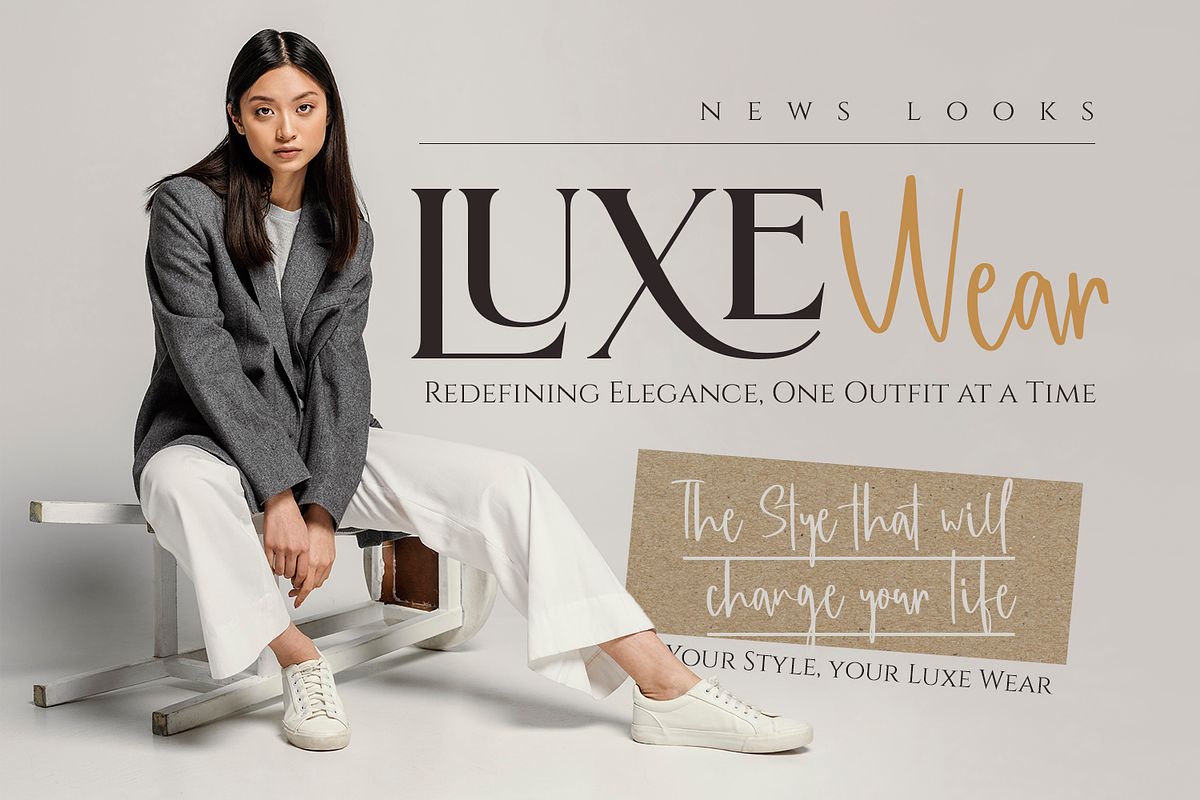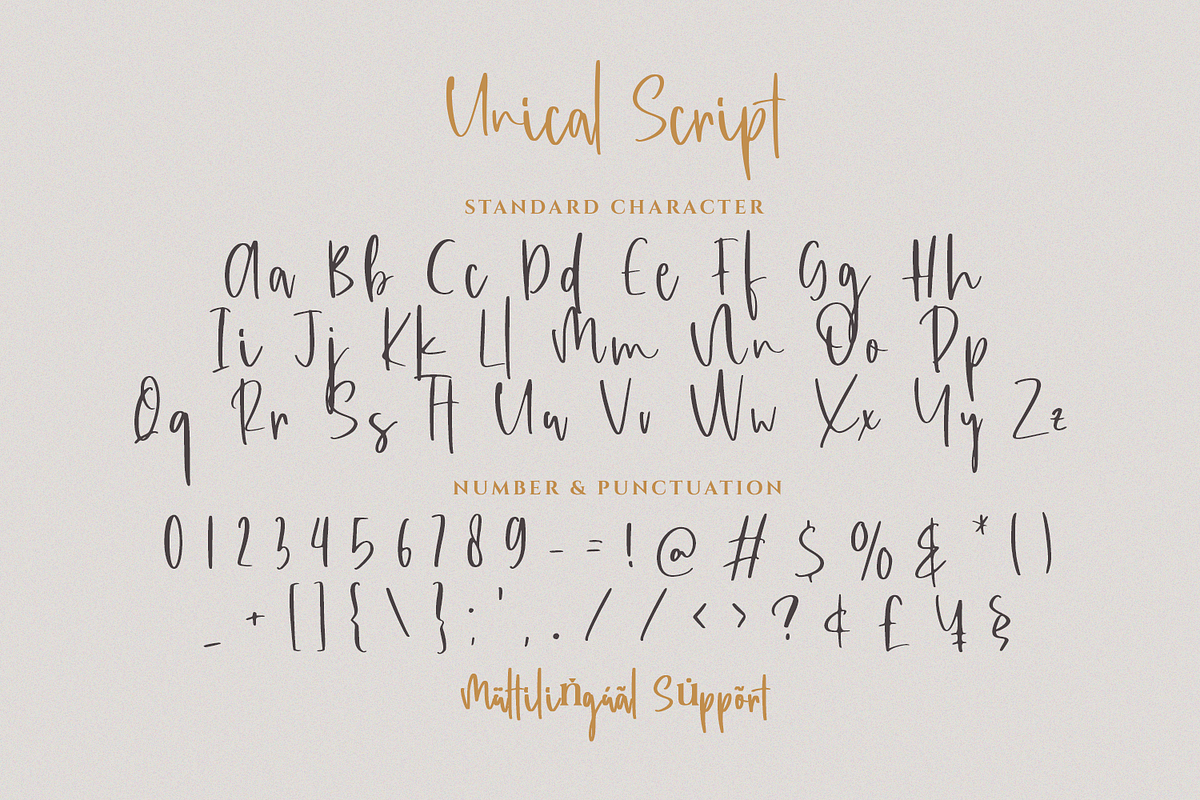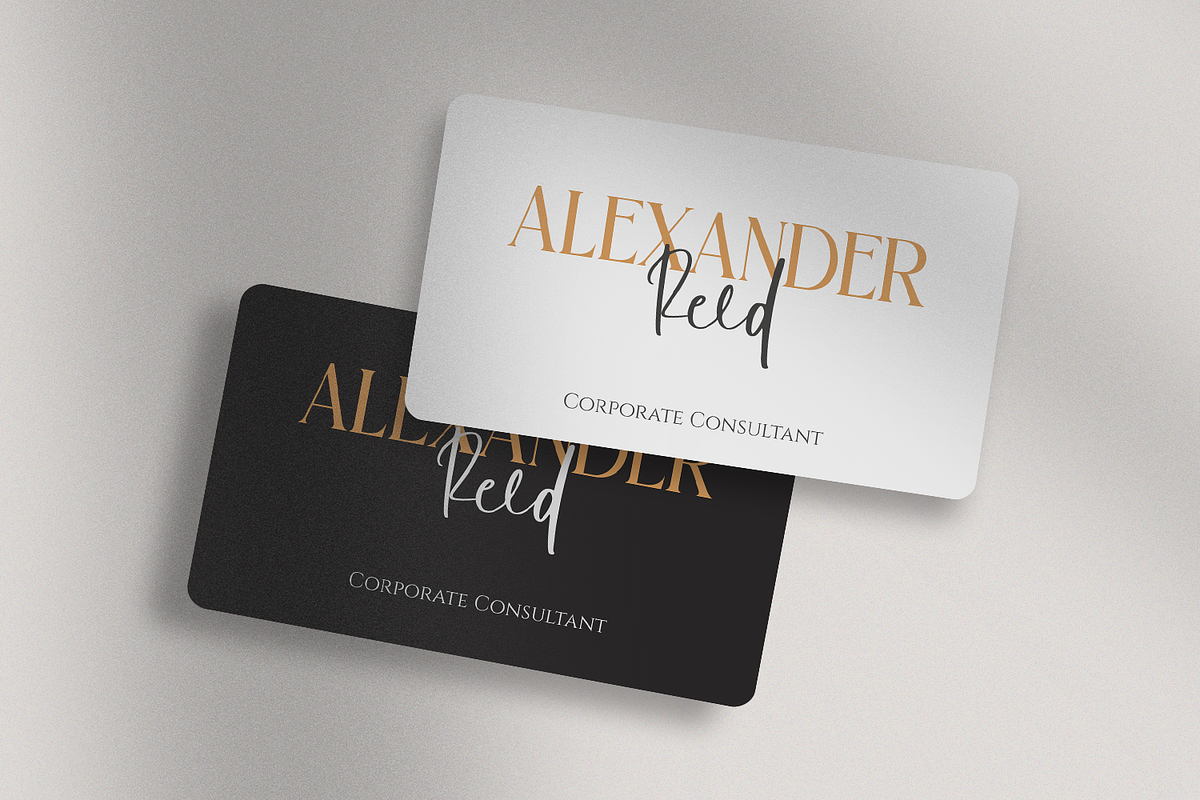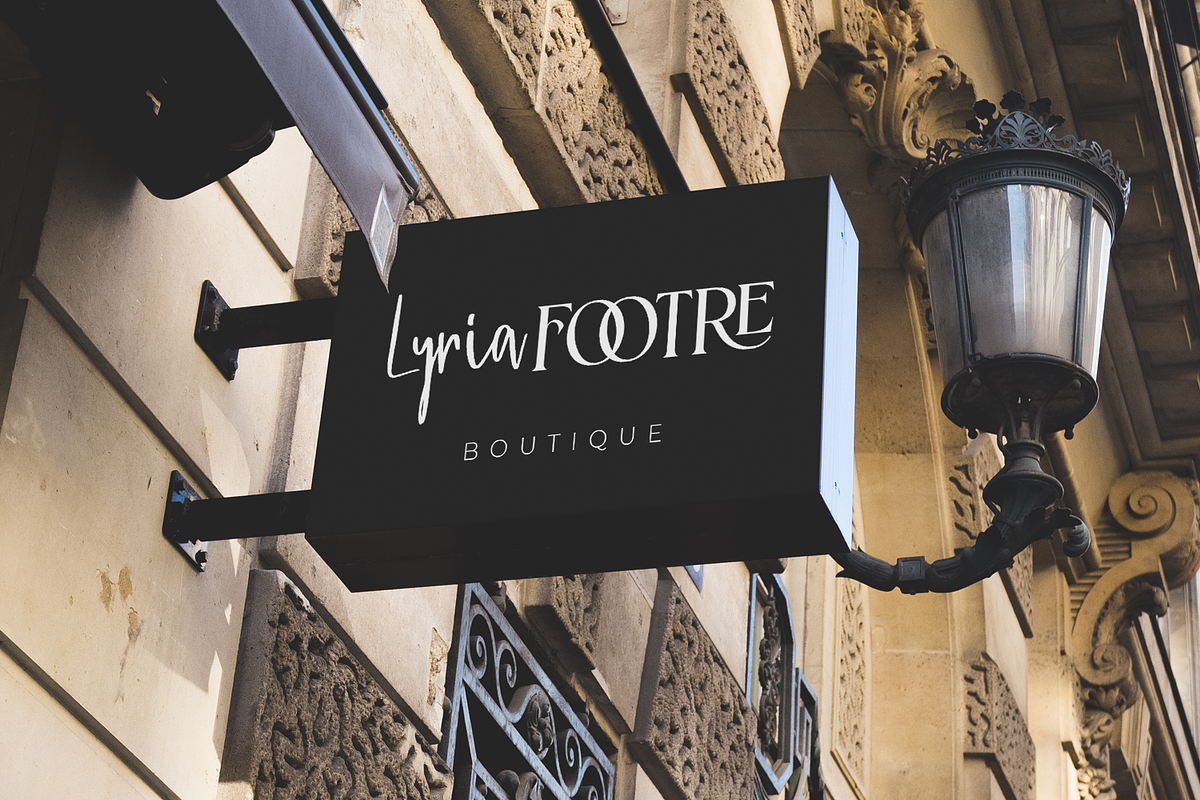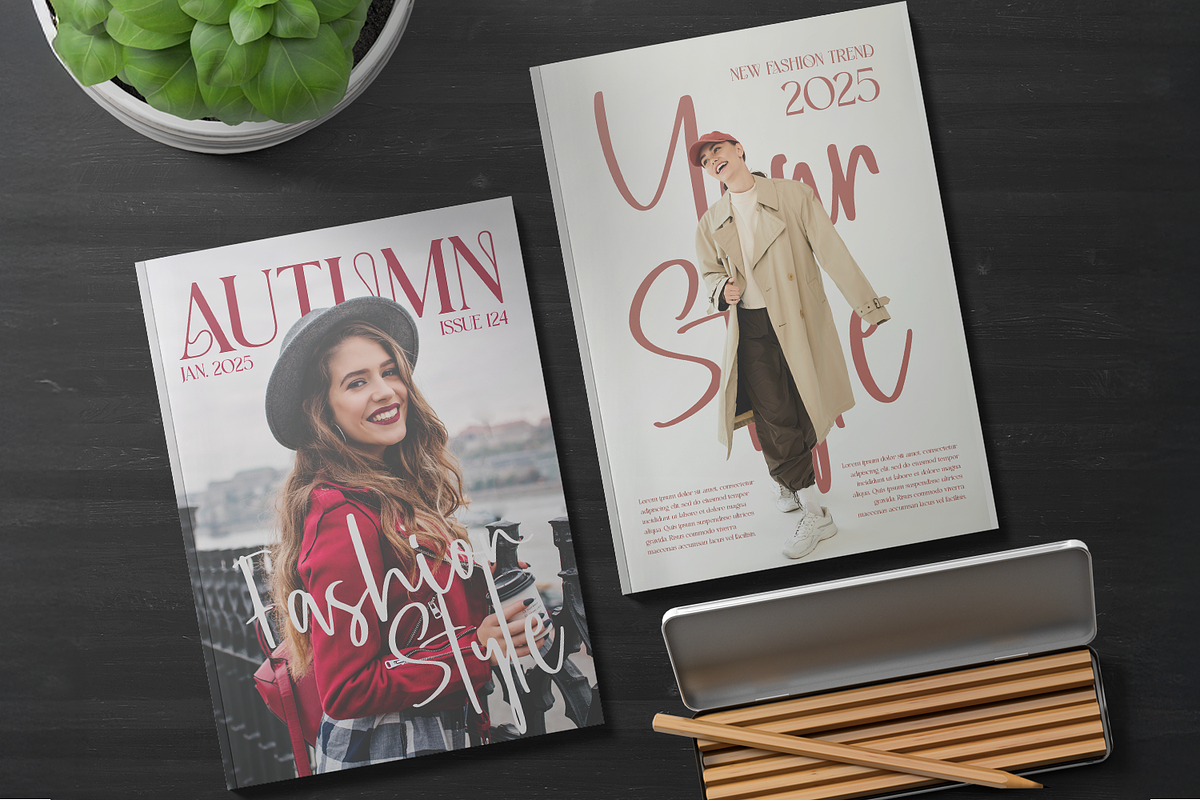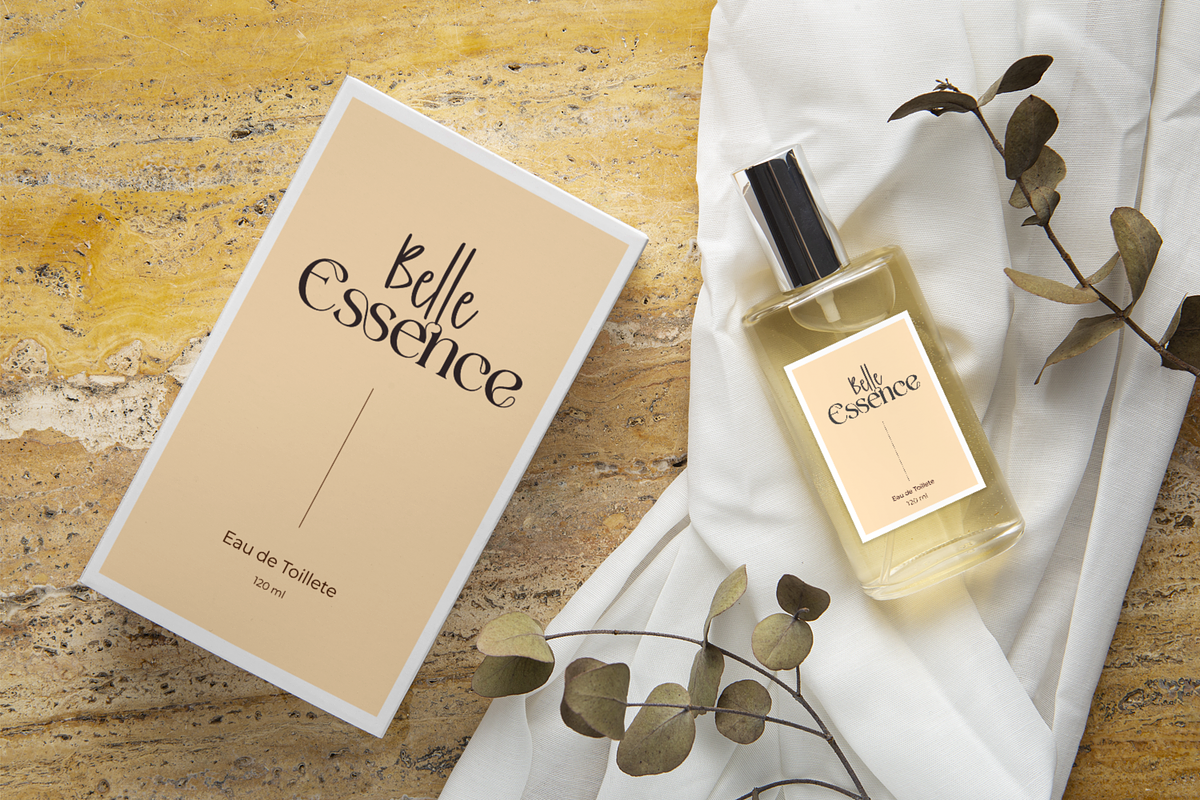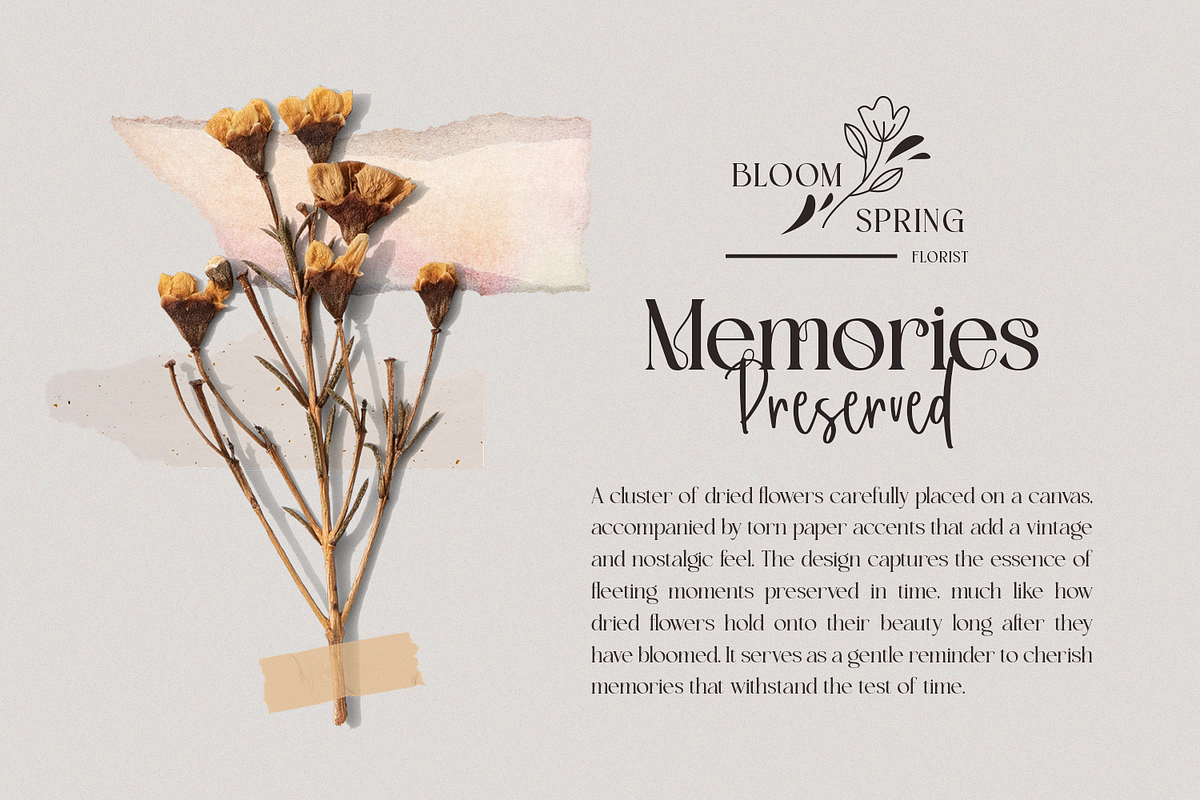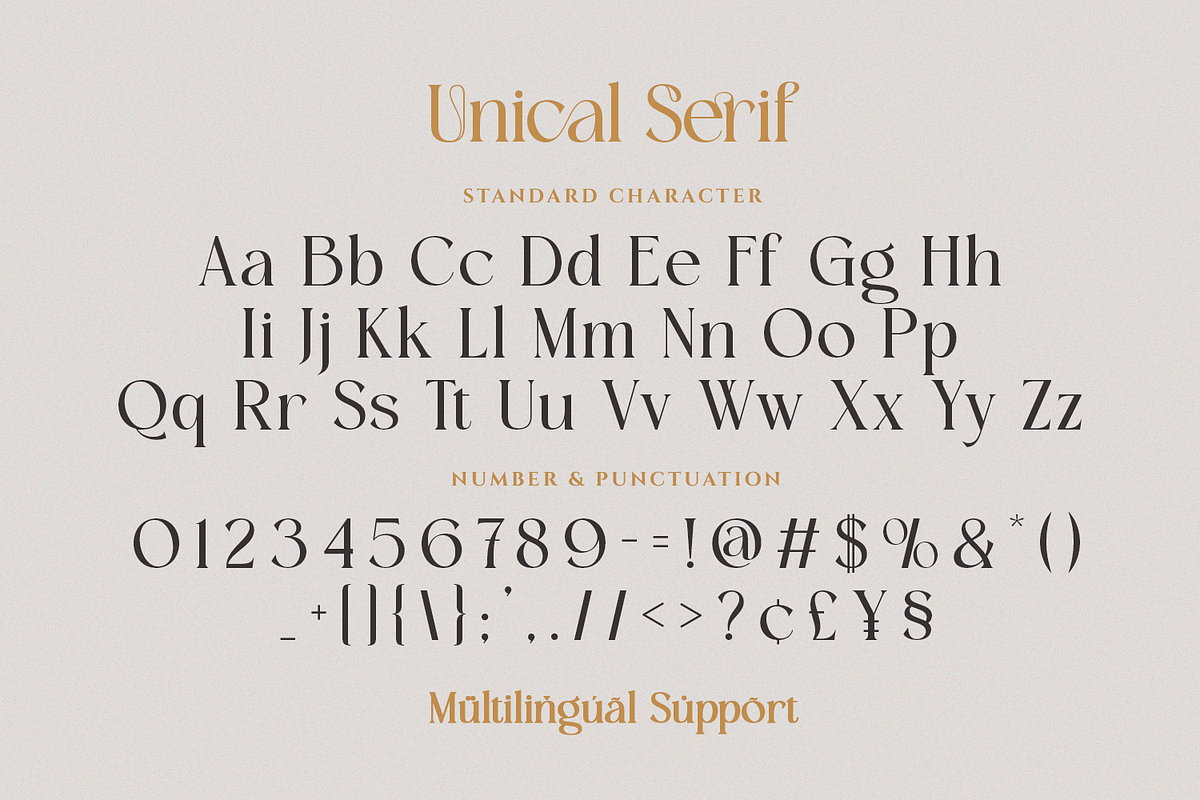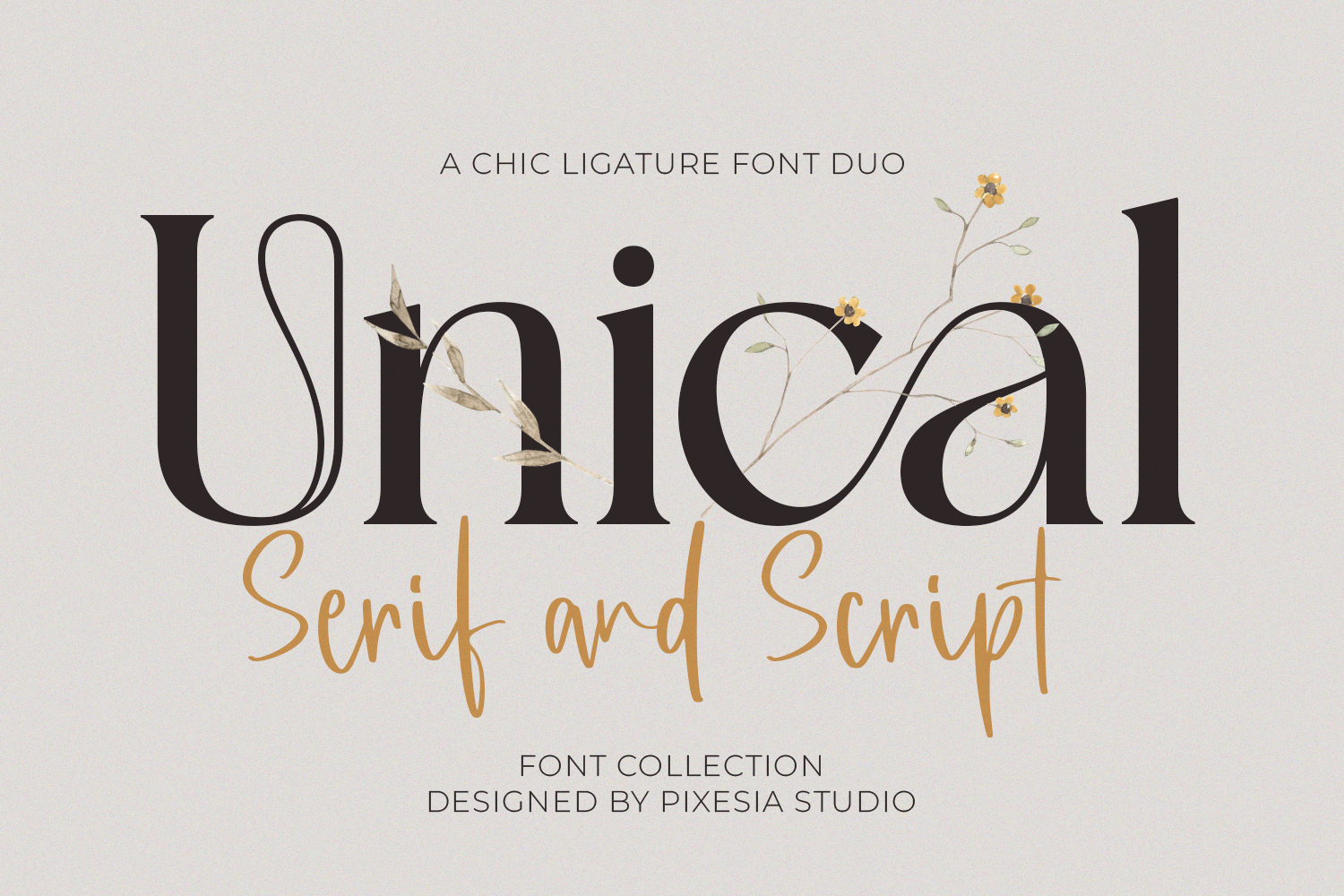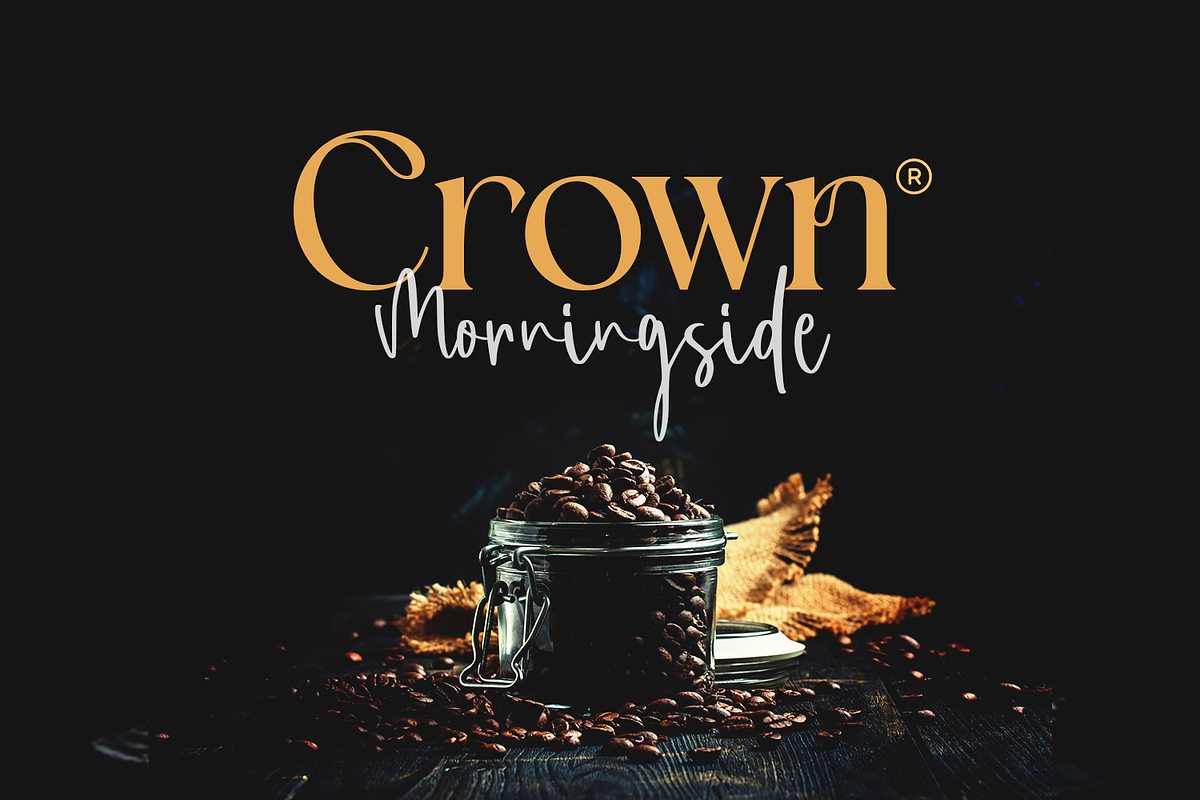
Unical - Modern Luxury Font
Introducing Unical - Modern Luxury Font
Unical is a modern luxury font featuring sleek, sophisticated characters that blend contemporary style with timeless elegance. Ideal for high-end designs and headlines, this font adds a touch of refinement to any project. This beautiful font is available in two styles (Serif and Script).
Unical is perfectly suited for branding, logotypes, wedding invitations, romantic quotes, labels, social media posts, advertisements, product packaging, product designs, label, photography, watermark, invitation, stationery and any projects seeking premium quality and luxury and aesthetic feel.
- Unical Serif
- Unical Script